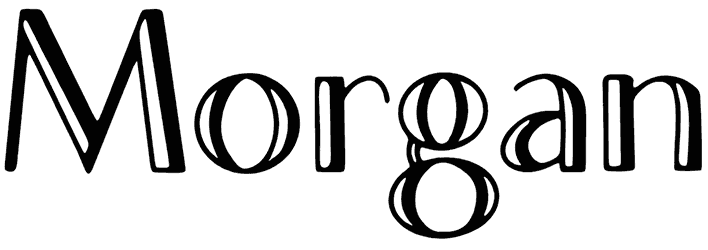
Morgan Font
If you are looking for a sans serif font that at the same time carries a sense of modernity, professionalism, and dynamic, we bring you Morgan. It comes with a marvelous style, and thus would suit a wide set of graphic purposes ranging from movie posters, stationaries, branding projects, and magazines, to web pages.